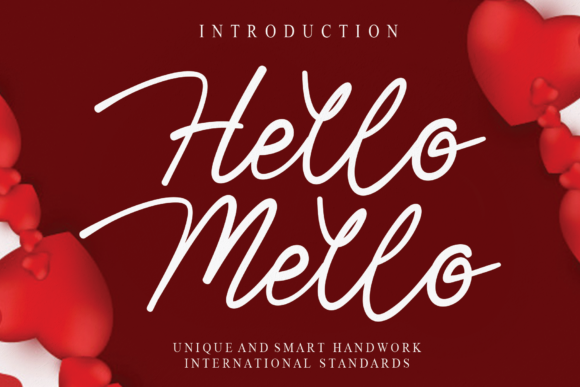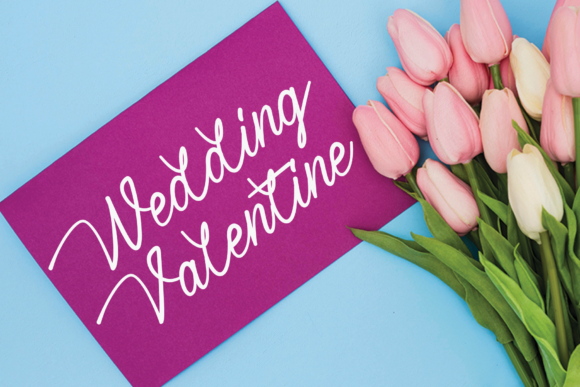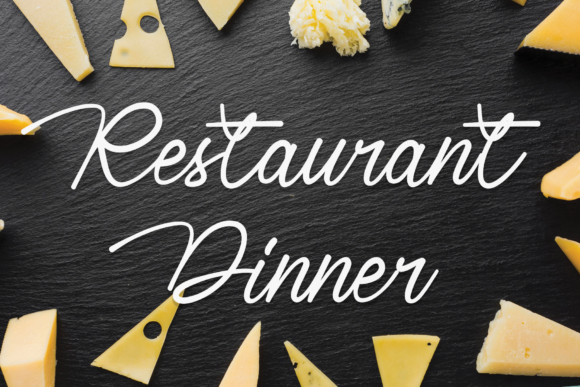
About Hello Mello Font
Hello Mello is an adorable handwritten font that exudes a playful and lively vibe, making it perfect for adding a touch of cheerfulness to your designs. With its sweet and full of life style, Hello Mello brings a sense of joy and positivity to any creative project.
The charming and whimsical nature of Hello Mello makes it a great choice for various design applications. Whether you’re designing greeting cards, posters, social media graphics, or any other creative materials, Hello Mello will infuse your work with a delightful and energetic atmosphere.
When used in greeting cards, Hello Mello instantly creates an inviting and friendly atmosphere. Its cute letterforms and lively strokes evoke a sense of warmth and happiness, making it ideal for sending heartfelt messages and spreading smiles.
In posters and flyers, Hello Mello stands out with its playful and vibrant appearance. The font’s fun and lively style adds a touch of personality to event announcements, promotional materials, or any design that aims to capture attention and engage the viewer.
For social media graphics, Hello Mello brings a burst of energy and positivity to your posts. Its cheerful and full of life style is perfect for sharing uplifting quotes, announcing exciting news, or simply adding a touch of playfulness to your feed. Hello Mello helps create a connection with your audience and leaves a lasting impression.
In branding and packaging, Hello Mello adds a charming and whimsical element to your designs. Its cute and friendly letterforms can bring a sense of approachability and relatability to logos, labels, and product packaging. Hello Mello helps create a memorable and engaging visual identity that resonates with customers and conveys a lighthearted and joyful brand image.
Hello Mello ensures readability and legibility, making it suitable for both digital and print applications. Its clear and distinct letterforms make it easy to read, even at smaller sizes or when used in longer text blocks.
Overall, Hello Mello is a delightful handwritten font that adds a touch of liveliness and positivity to your designs. Its sweet and full of life style makes it a wonderful choice for brightening up various creative projects. Embrace the charm of Hello Mello and let it bring a playful and joyful element to your design endeavors.